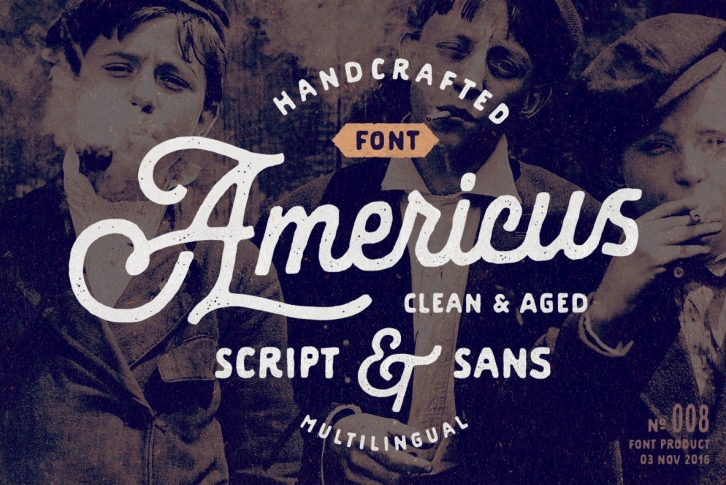
Americus Script & Sans was crafted by hand with love to traditional sign painting and american typography style in general. All characters have an imperfect shape that gives a natural look in design. It easily cooperating together and perfect for creating the traditional style logos, labels, package design, lettering for t-shirts and much others.
This vintage pair have clean and aged version, special features such as stylistic alternates, ligatures and swashes. Also, Americus includes western european characters (multilingual support).